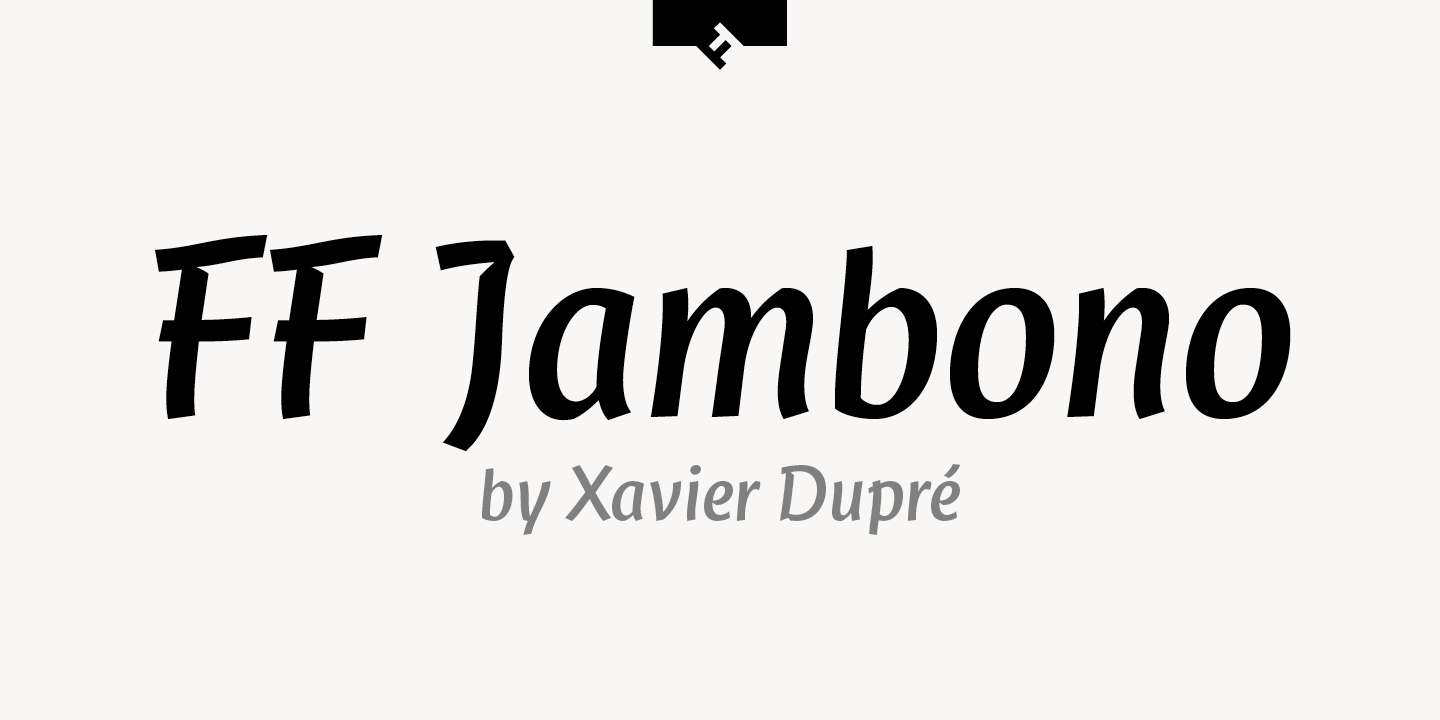
FF Jambono Font is perfect for various applications including world music festival branding, cultural celebration posters, ethnic restaurant logos, traditional craft packaging, international event graphics, multicultural organization signage, folk art exhibitions, artisan marketplace materials, global tourism campaigns, and authentic cultural marketing.
What makes FF Jambono Font so exciting is its vibrant ability to capture the joyful rhythm and cultural richness of global celebrations through typography that pulses with musical energy and traditional craftsmanship. This spirited typeface features dynamic letterforms with festive proportions and culturally-inspired details that evoke the infectious energy of world music and the authentic beauty of traditional arts. The font's celebratory character and culturally-rich aesthetic make it ideal for brands that want to convey joy, authenticity, and cultural diversity to audiences who appreciate world music, traditional crafts, and multicultural experiences.
FF Jambono Font family includes multiple weights and styles: Light, Regular, Medium, Bold, Black, Festive, Condensed, Extended, and culturally crafted Italic variants. Each family member maintains the font's signature cultural vibrancy while offering different levels of visual impact and stylistic flexibility for diverse multicultural and celebratory applications.
The FF Jambono Font Free Download provides designers with access to a culturally-inspired typeface that excels in entertainment and multicultural markets. Whether you're creating world music festival identities, designing cultural celebration materials, or developing authentic multicultural experiences, this font delivers the vibrant aesthetic needed to capture the spirit of global celebrations and traditional artistry. Its festive styling and cultural essence make it particularly effective for music festivals, cultural organizations, and international tourism businesses.
Typography enthusiasts will appreciate the rhythmic energy and cultural authenticity in FF Jambono Font's design. The font features dynamically crafted letterforms with festive proportions, optimized spacing for celebratory applications, and carefully preserved cultural details that ensure excellent readability while maintaining its joyful character. From festival banners to artisan craft packaging, this typeface maintains its vibrancy and cultural appeal across all celebratory contexts.
For cultural web designers, FF Jambono Font provides outstanding performance in festive digital environments and multicultural platforms. The font's technical specifications are optimized for vibrant presentations while preserving the dynamic, culturally-rich edges that define its celebratory character. Its versatility makes it suitable for both static cultural content and interactive festival experiences.
Creative professionals working in world music, cultural events, traditional crafts, and international tourism will find FF Jambono Font to be an essential tool for projects requiring authentic cultural communication. The font's ability to convey joy, tradition, and cultural celebration makes it invaluable for brands targeting multicultural demographics and culturally-curious audiences.
Design agencies specializing in cultural and entertainment brands appreciate FF Jambono Font's versatility in creating memorable festive identities.